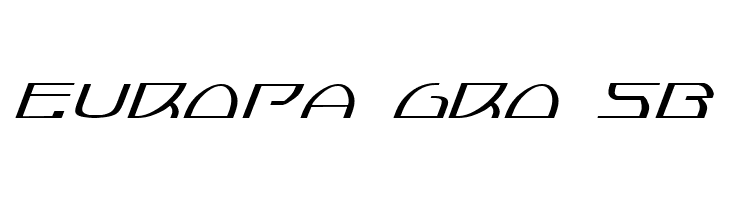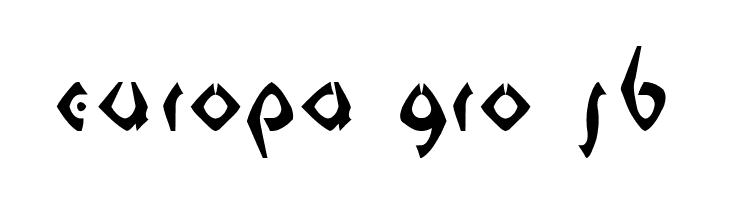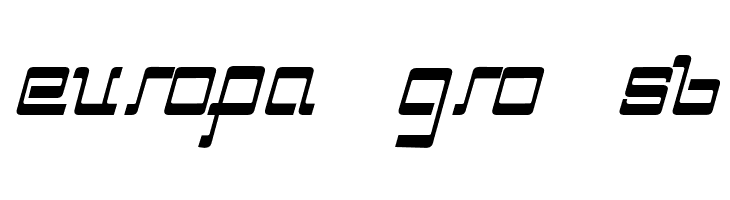
A bold, medieval-inspired font with sharp, angular edges and a hand-crafted look.
A jagged, angular font with sharp strokes and dynamic energy.
( Fonts by www.fugit-tempus.de )
A bold, angular italic font with a futuristic, industrial aesthetic.
( Fonts by Levi Halmos )
A bold, gothic-inspired font with sharp, angular serifs and a medieval aesthetic.
( Fonts by Dennis Ludlow - Sharkshock Productions )
A bold, angular font with a playful and rebellious style.
A gothic blackletter font with sharp, angular lines and ornate detailing.
A dynamic, futuristic italic font with angular, geometric characters.
( Fonts by Patrick Broderick )
A bold, angular decorative font with a geometric style.
A bold, graffiti-inspired font with sharp, angular lines and dynamic curves.
( Fonts by Nate Piekos - www.blambot.com )
A bold, angular font with a Gothic influence, ideal for dramatic and eye-catching designs.
A futuristic, hollow, geometric font with clean lines and angular shapes.
A futuristic, geometric font with outlined, angular letterforms.
( Fonts by www.tepidmonkey.net )
A geometric, angular font with a futuristic and digital aesthetic.
( Fonts by Levi Halmos )
A bold, geometric font with angular shapes and sharp edges.
( Fonts by Alan Carr )
A bold, angular font with sharp geometric lines and a dynamic style.
( Fonts by www.fugit-tempus.de )
A bold, italicized font with sharp, angular design and dynamic slant.